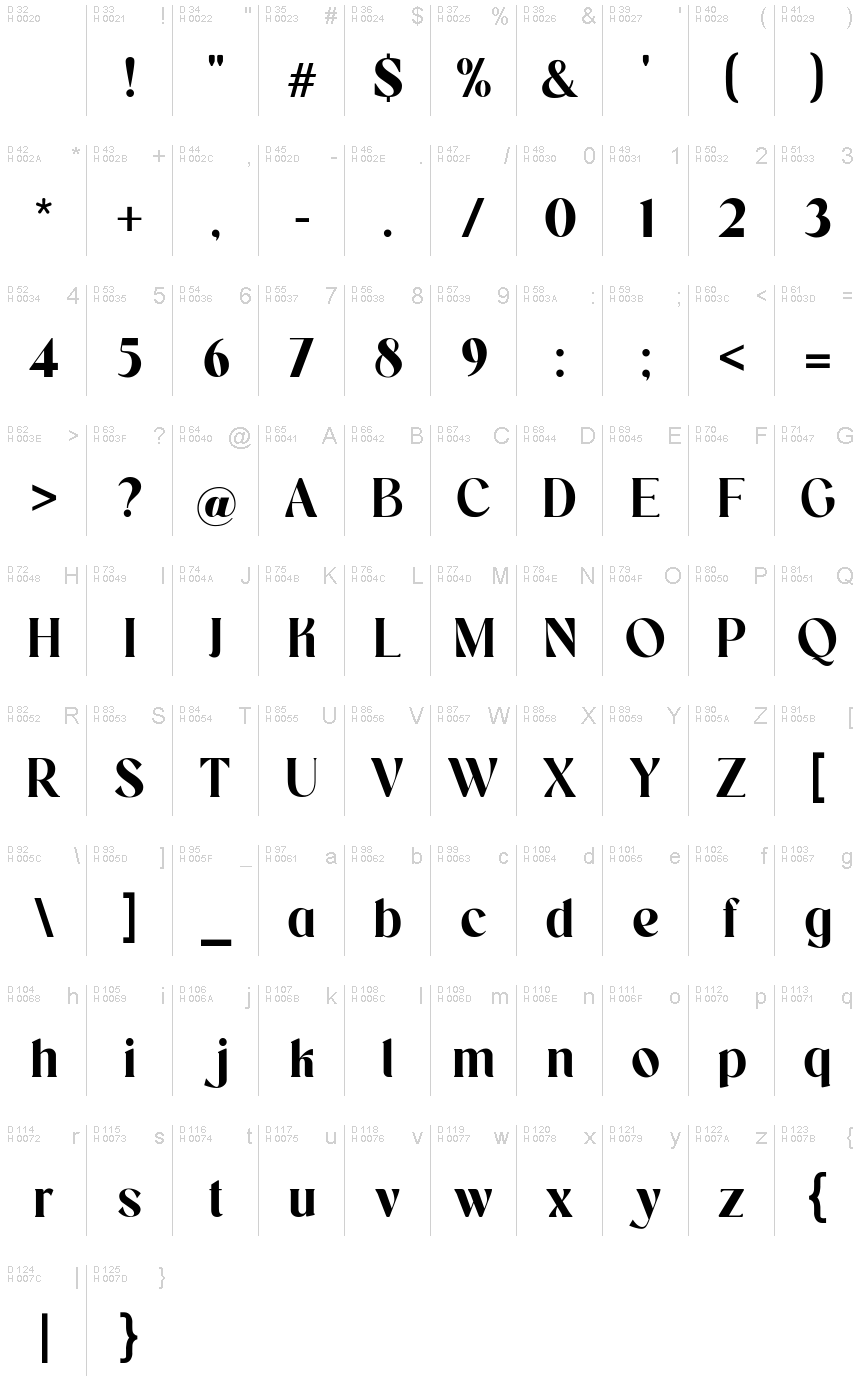
Holispay
Holispay, a captivating serif font crafted by UI Creative, exudes an elegant and refined aesthetic. Its sharp, angular serifs and clean, geometric letterforms create a striking, contemporary impression. The font's balanced proportions and harmonious stroke contrast lend it a sense of timeless sophistication, making it a versatile choice for a wide range of design applications.
Holispay's versatility shines through its ability to seamlessly adapt to diverse design contexts. From editorial layouts and branding materials to signage and packaging, this font's distinctive personality can elevate the visual impact of any project. Its refined character and exceptional legibility make Holispay an excellent selection for both display and body text, ensuring a polished and impactful typographic experience.